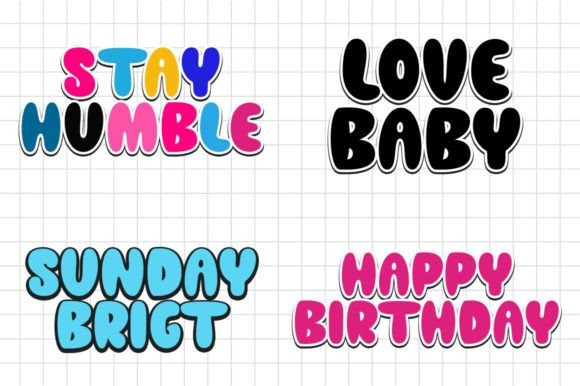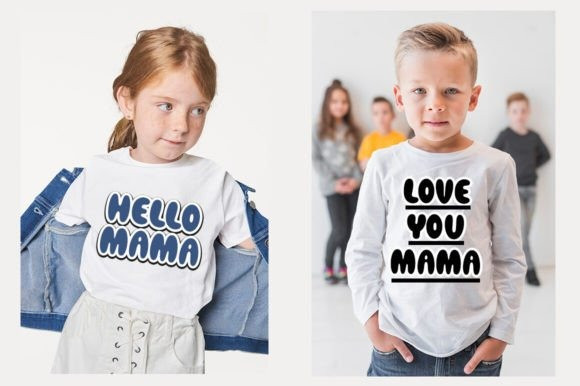
Your Beloved Display Font
Your Beloved Display Font is a fun and retro font, it’s perfect for designs that need a playful, cheery accent. Your Beloved is suitable for book covers, posters, packaging, merchandise, logotypes, and many more!